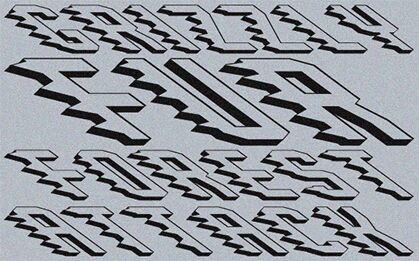
Grizzly font is a condensed 3D display font designed by Vladimir Nikolic. Its geometric, angular, and blocky style accompanied with stylized shadowing contribute to a bold futuristic aesthetic. An assertive eye-catching typography creation, this font gets straight to the point.
If you need your titles and headings to demonstrate the level of importance or authority your topics represent, then this free resource will help you achieve that. Use it in modern branding projects or sci-fi themes or as much as you want in editorials targeted for adults. Posters and book covers are also places where viewers can engage with Grizzly’s unconventional letters.